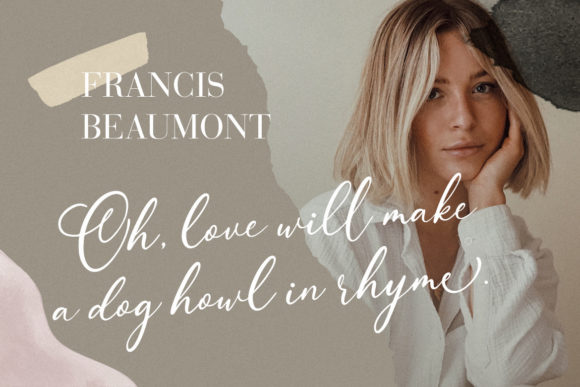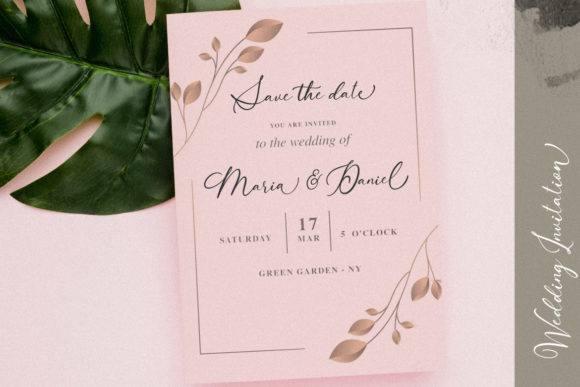
Aurelye Font
db-ku.com - Script & Handwritten -- Aurelye is an elegant script font with a contemporary atmosphere and impeccable form, inspired by timeless classic calligraphy. Not too thin and not too thick, balanced and varied, this font was designed to enhance the beauty of your projects. Aurelye is PUA encoded which means you can access all of the glyphs and swashes with ease!